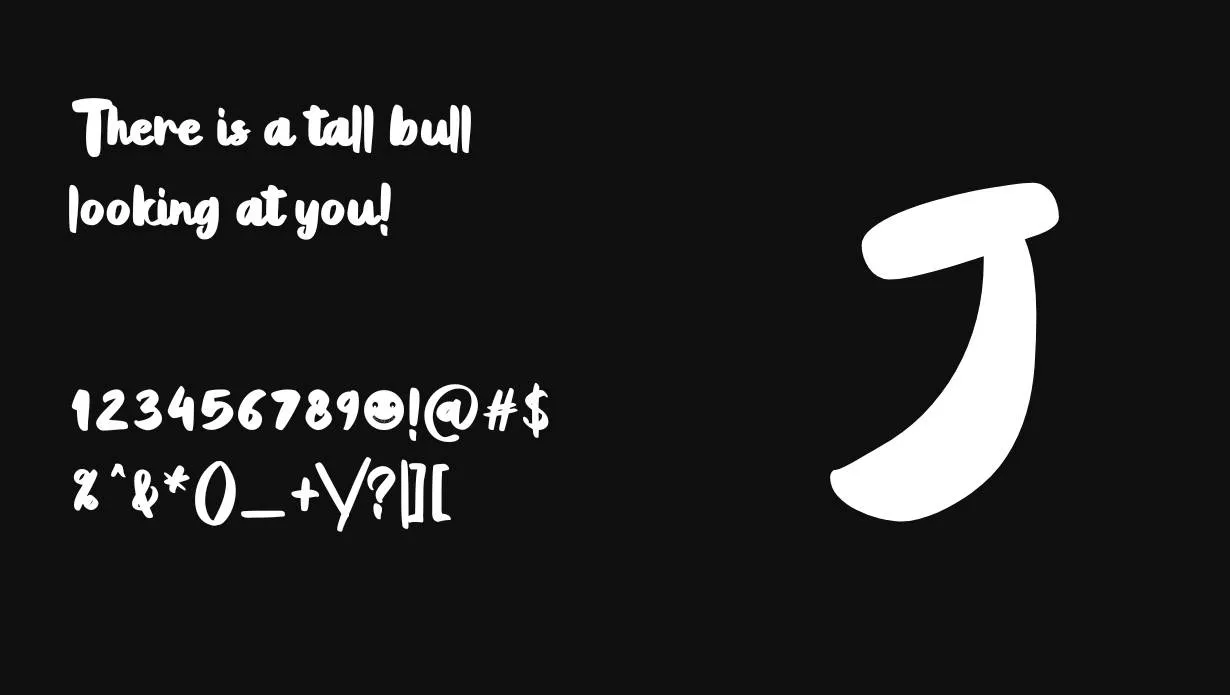
Jungle Font brings a wild and adventurous spirit to design projects with its unique and organic letterforms. Commonly used in nature-themed designs, book covers, and environmental campaigns, this font captures the essence of the outdoors.
View of Jungle Font
- Jungle Regular